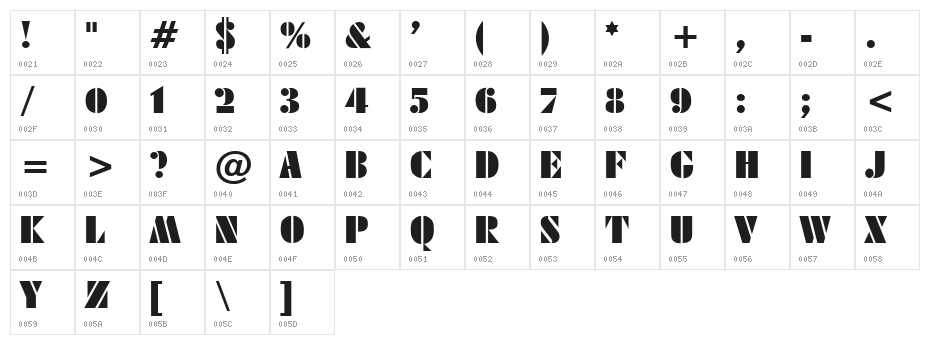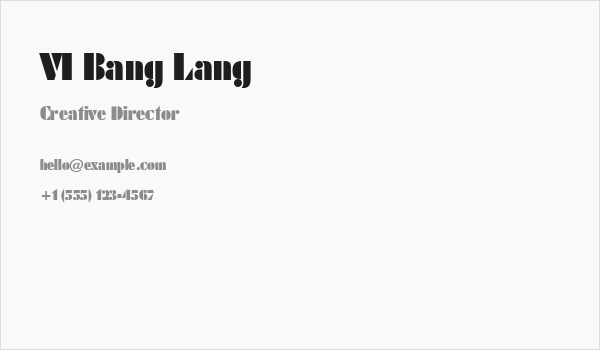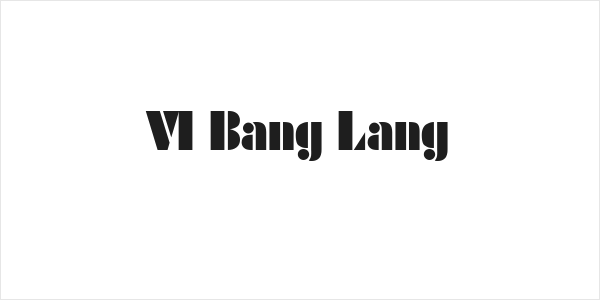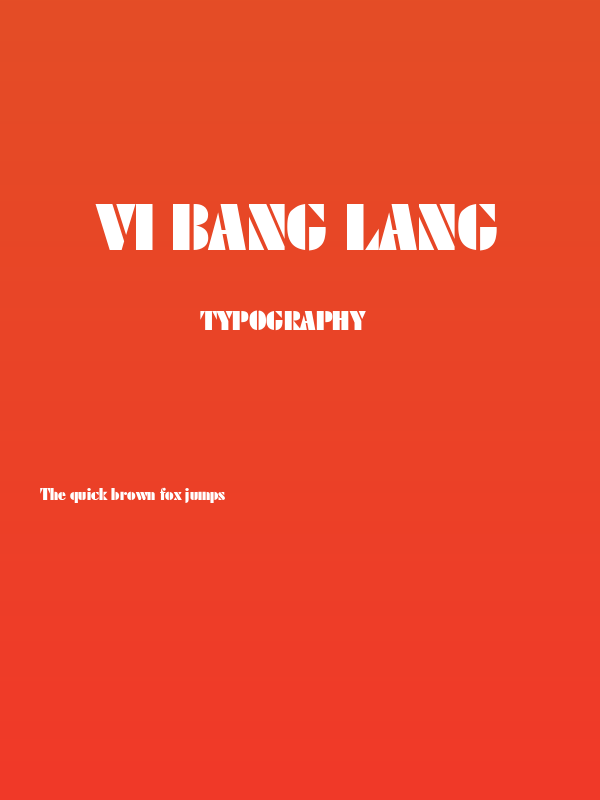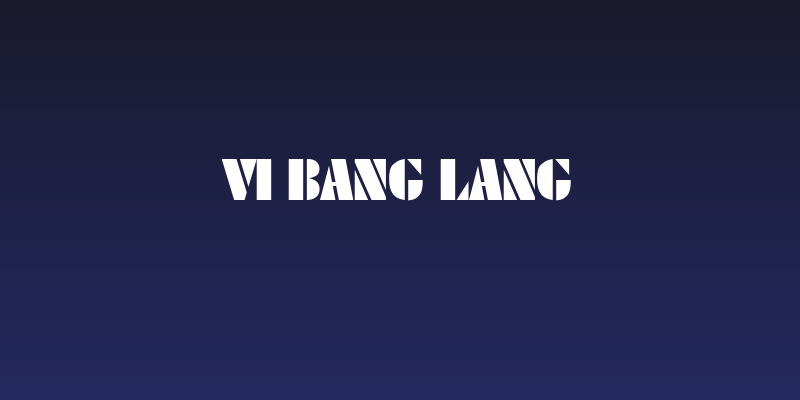
VI Bang Lang Font
VI Bang Lang Description
This font features a bold and striking design with a strong geometric influence. Each character is crafted with a high contrast between thick and thin strokes, creating a dramatic and eye-catching appearance. The uppercase letters are particularly distinctive, with sharp angles and unique cutouts that give the font a modern and artistic flair. The lowercase letters maintain the boldness while offering a slightly softer edge, making them versatile for various design applications. Numbers and special characters are equally bold, ensuring consistency across all text elements. This font is perfect for making a statement in any design project.
| Proposed Projects | Ideal for branding, poster design, headlines, and any project requiring a strong visual impact. |